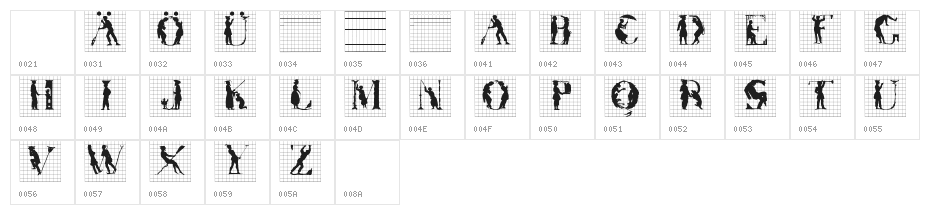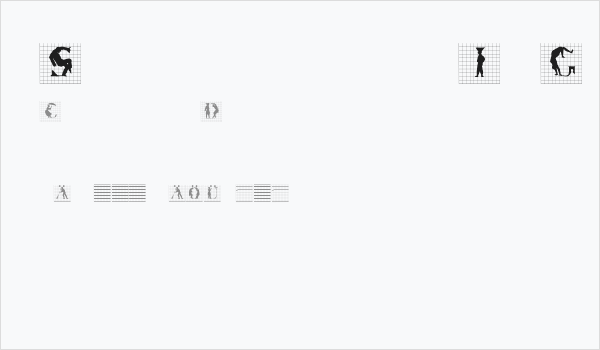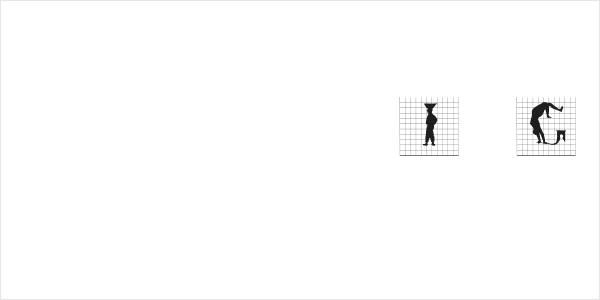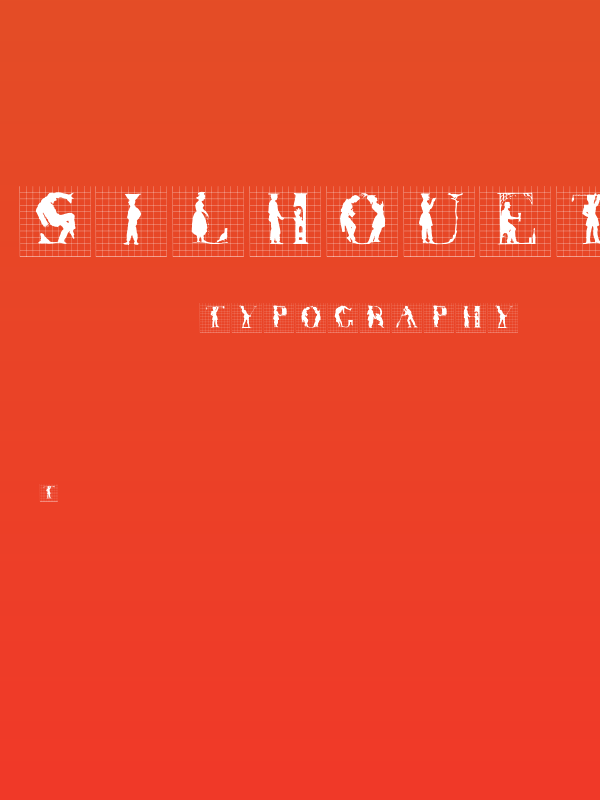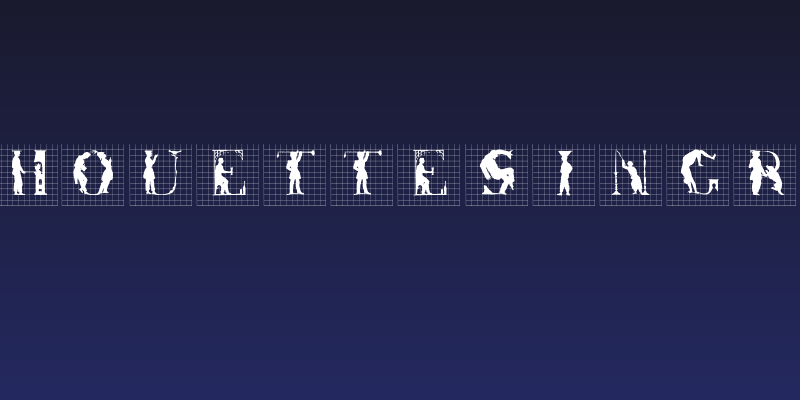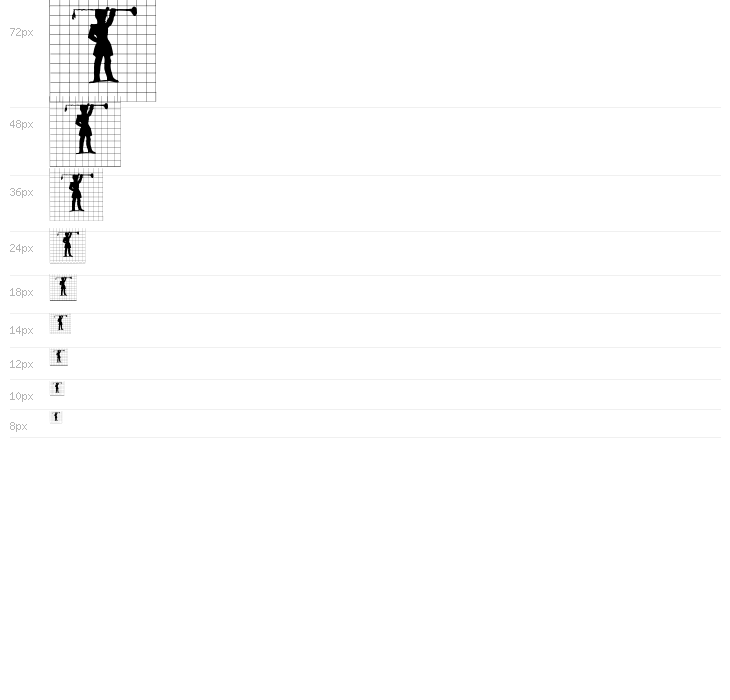
SilhouettesInGrids Font
SilhouettesInGrids Description
This unique and artistic font features silhouettes of people creatively integrated into each letter, creating a dynamic and engaging visual experience. Each character is enclosed within a grid, adding a structured yet playful element to the design. The silhouettes are detailed and varied, depicting different poses and activities, which adds a layer of storytelling to the typography. This font is perfect for projects that require a touch of creativity and human connection, making it ideal for artistic and expressive designs.
| Overall Style | Artistic |
| Use Case | Logos, Posters, Creative Projects |
| Proposed Projects | Ideal for artistic posters, creative branding, event invitations, and expressive graphic designs. |